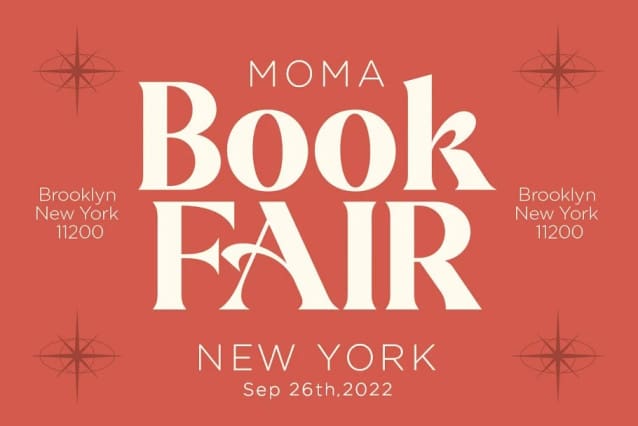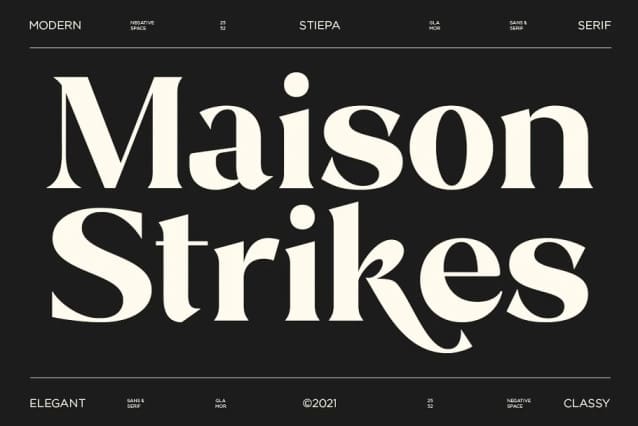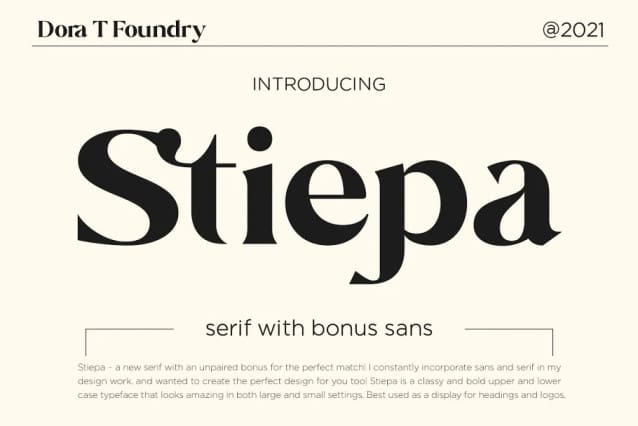
Stiepa Font
Stiepa Font is designed for fun combining sans and serif so you can combine them to create the perfect typographic design.
Stiepa Font is a classy and bold upper and lower case typeface that looks amazing in both large and small settings. It’s perfect for your upcoming projects. Such as luxury logo and branding, classy editorial design, women’s magazine, cosmetic brand, fashion promotion, art gallery branding, museum, architectural history, boutique branding, stationery design, blog design, modern advertising design, invitation card, art quote, home decoration , book/cover titles, special events, and more.